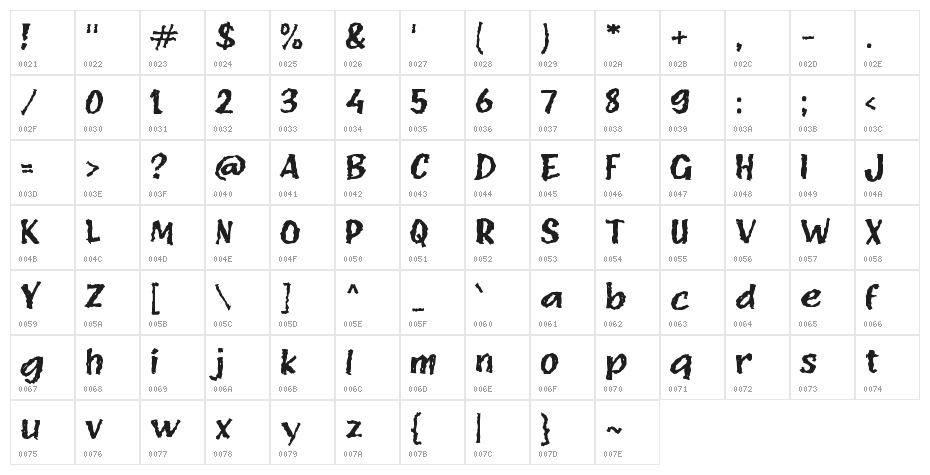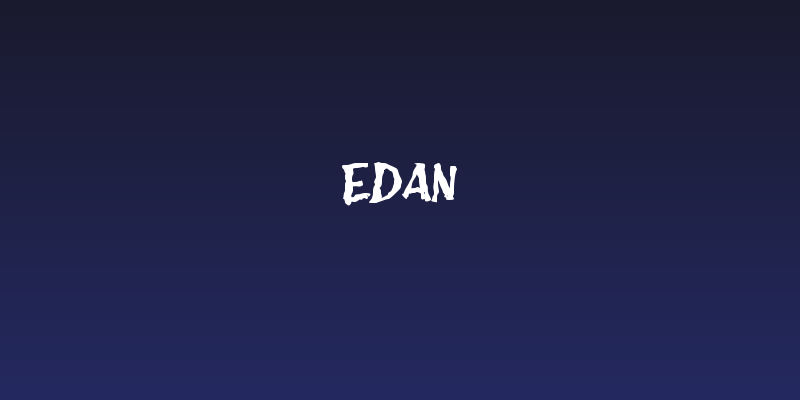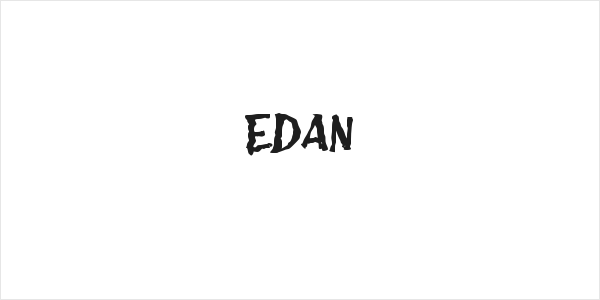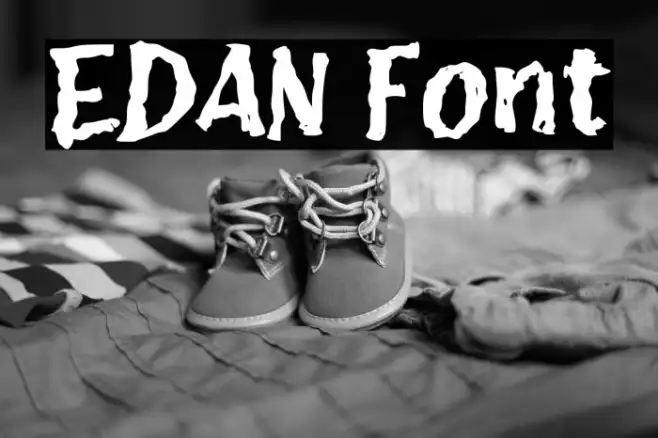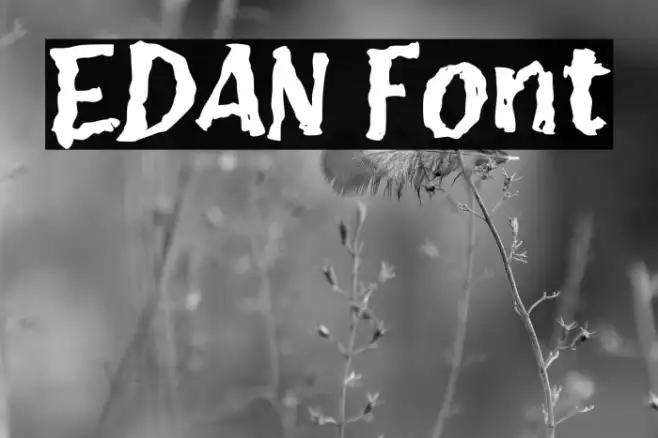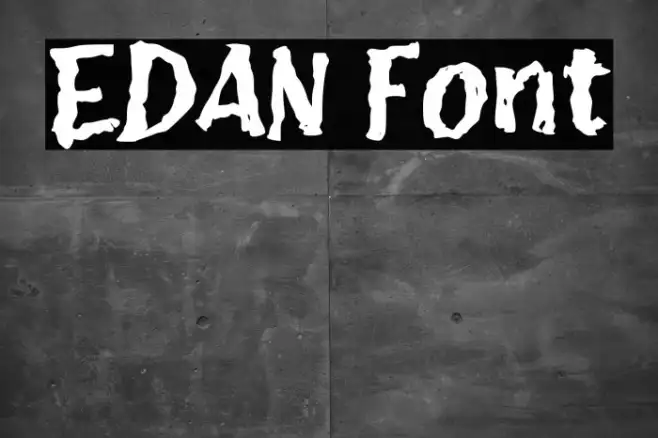
EDAN Font
EDAN Description
This font features a bold and rugged style with a hand-drawn appearance. The characters have an uneven, textured look, giving them a dynamic and energetic feel. The uppercase and lowercase letters maintain a consistent style, with jagged edges and irregular shapes that add to the font's unique character. Numbers and special characters follow the same design principles, ensuring a cohesive look across all glyphs. This font's distinctive style makes it stand out, perfect for projects that require a bold and artistic touch.
| Proposed Projects | Ideal for posters, album covers, graffiti art, and any design needing a bold, artistic flair. |